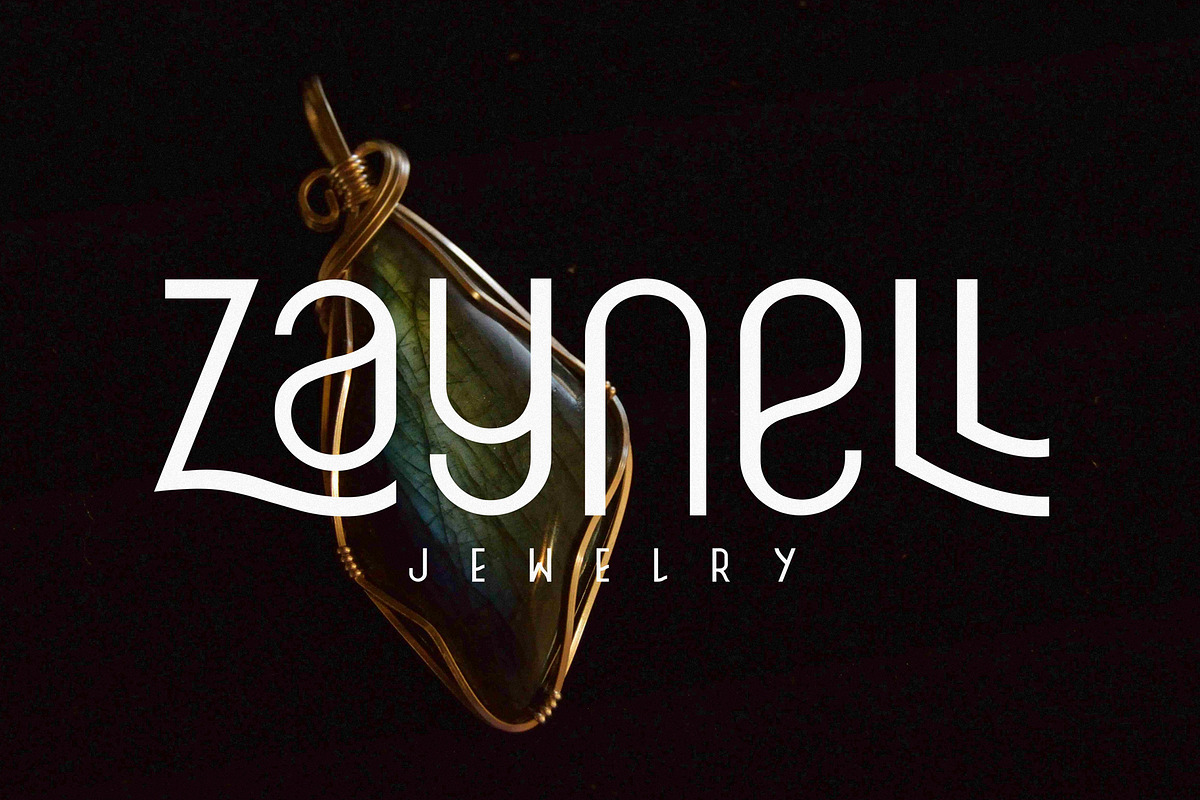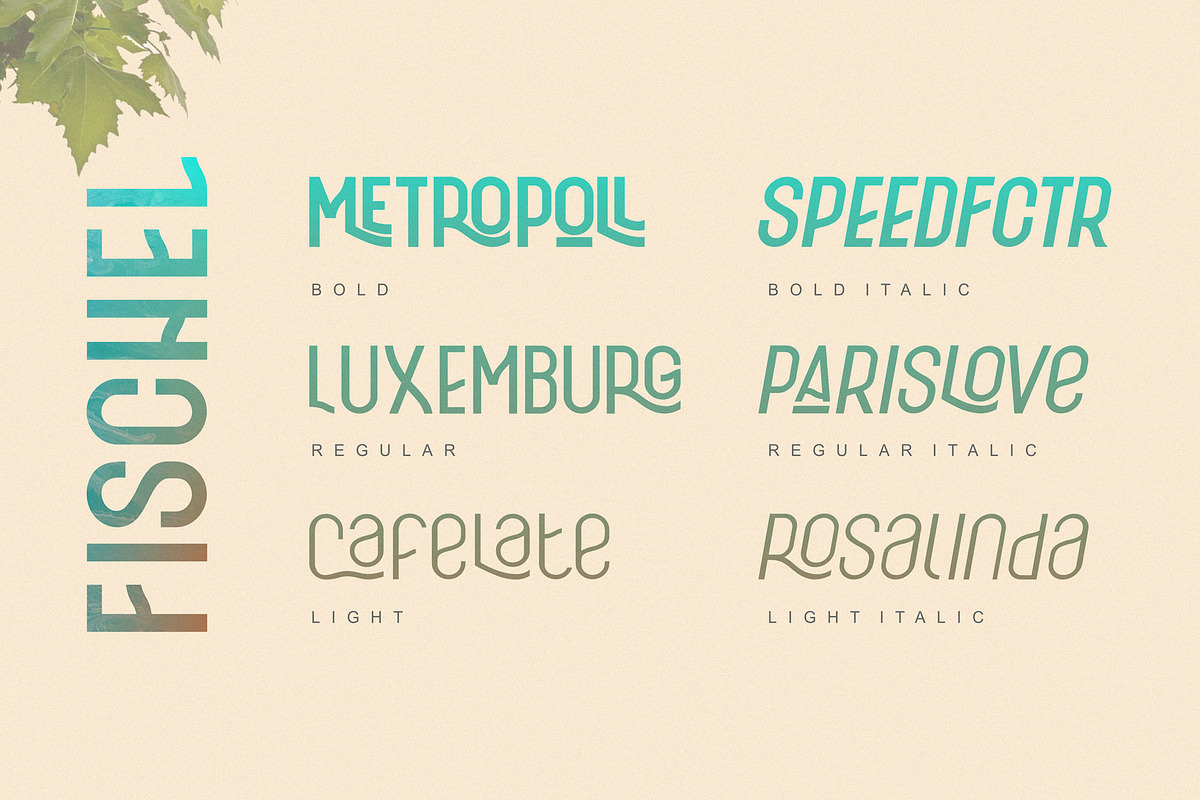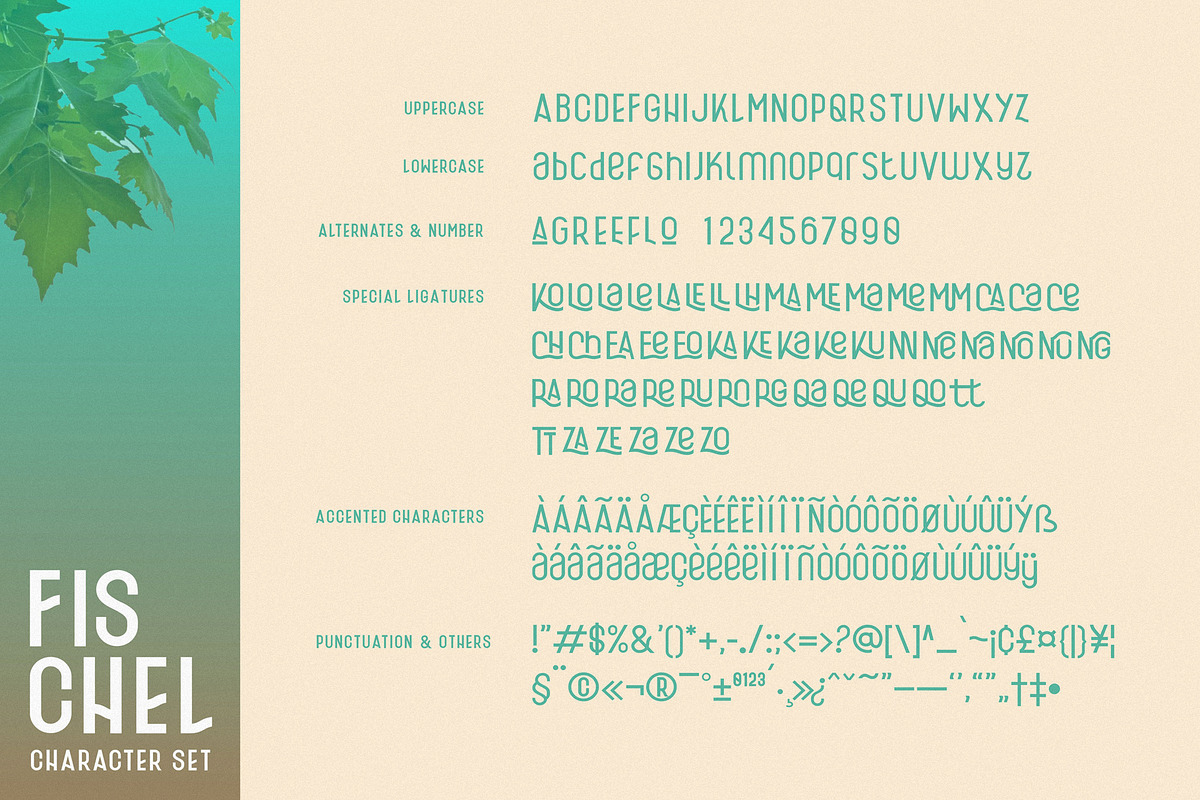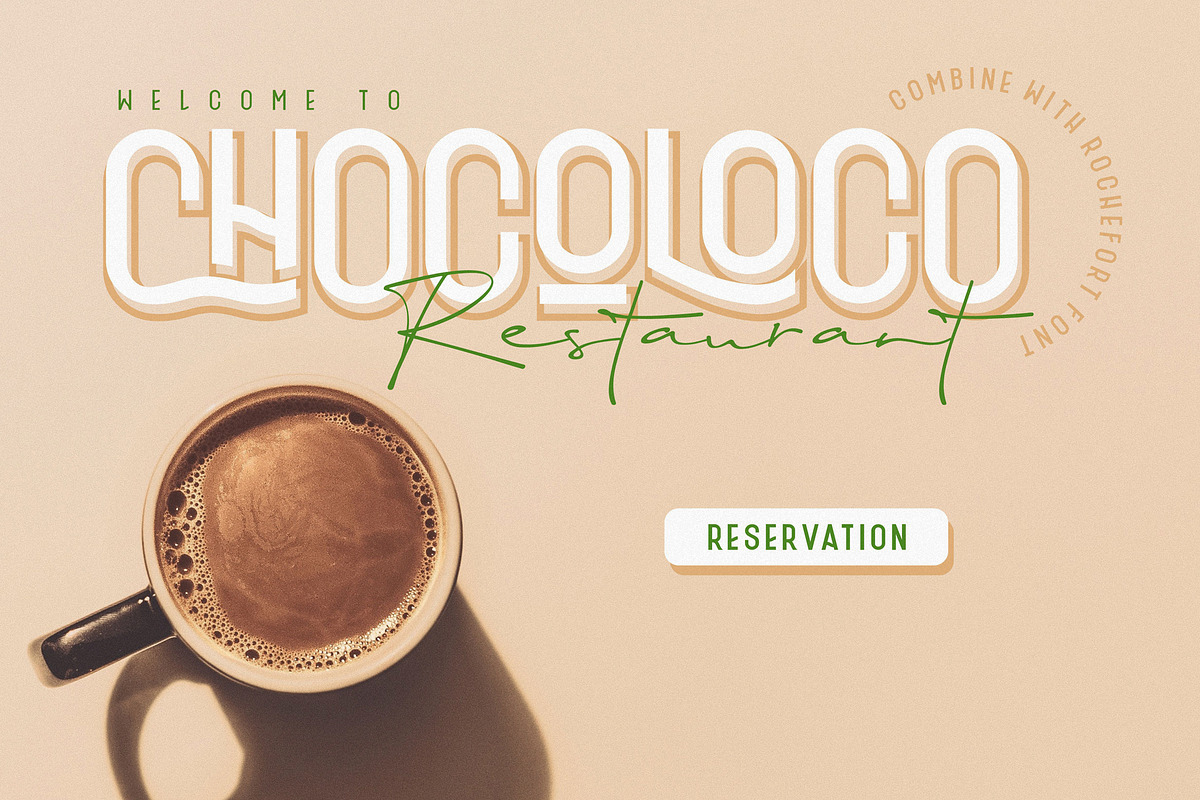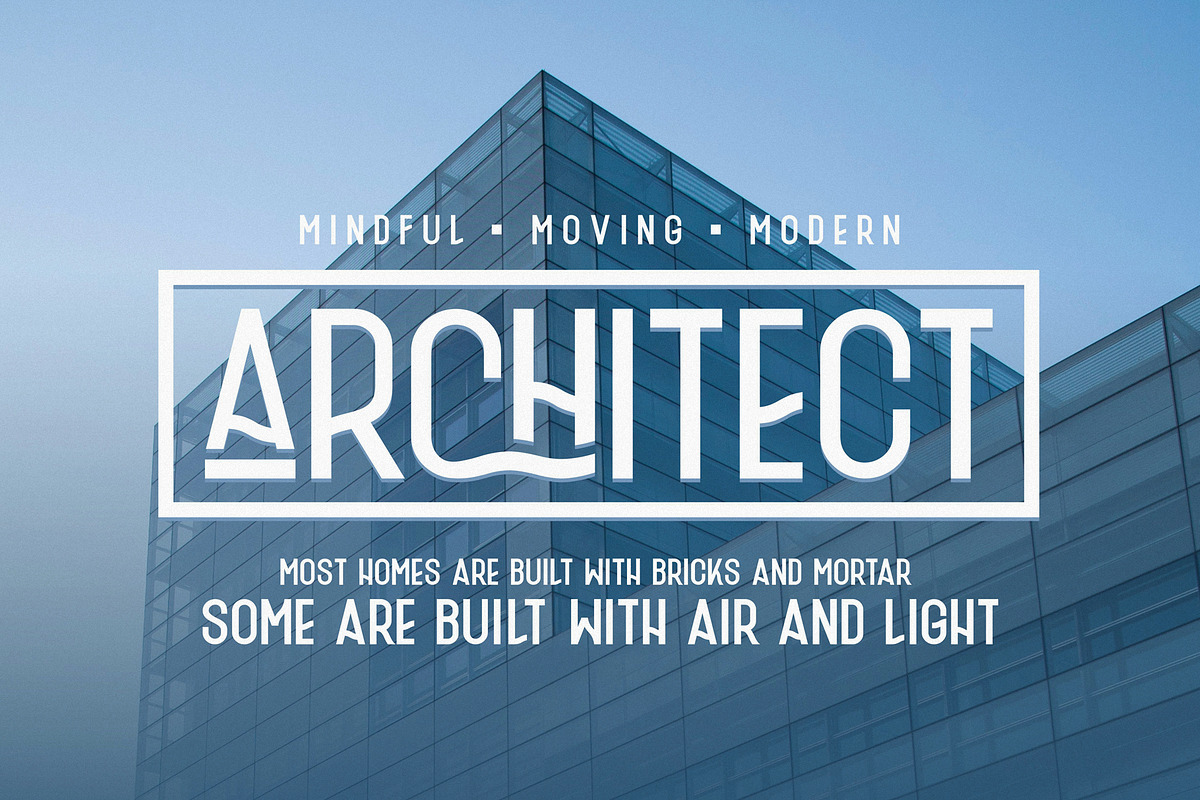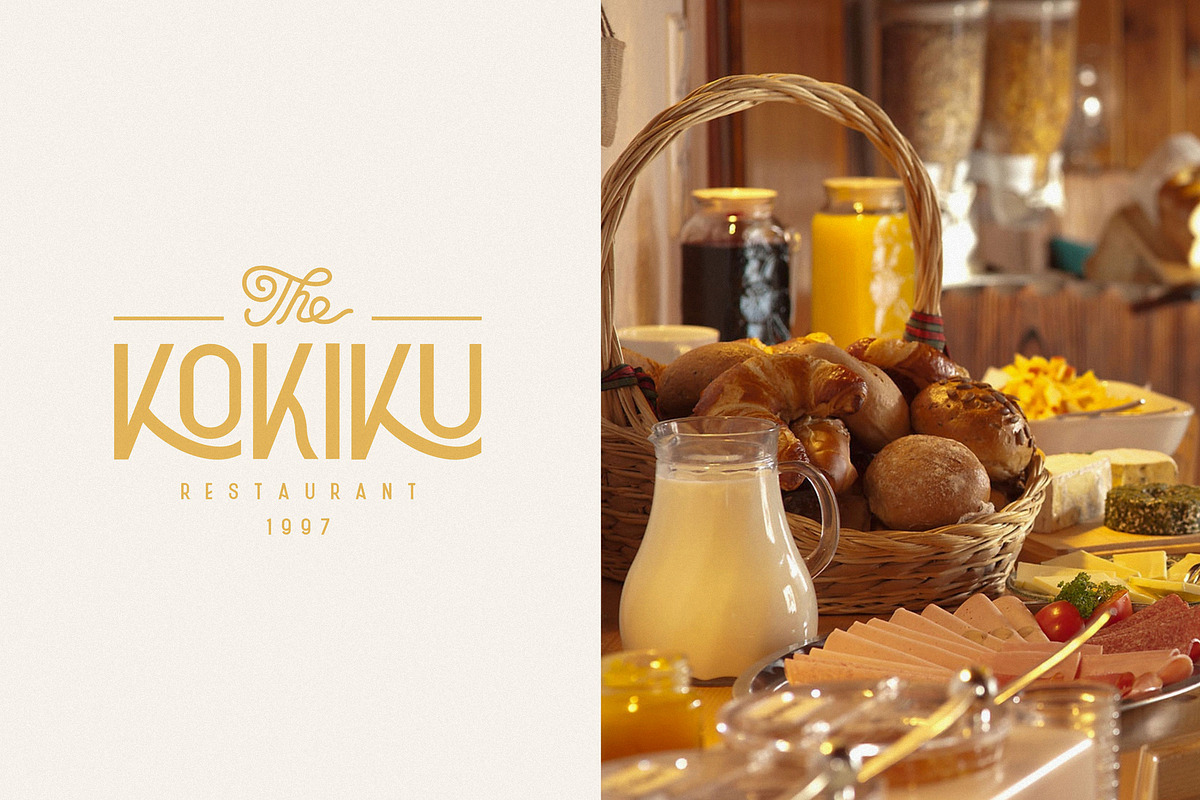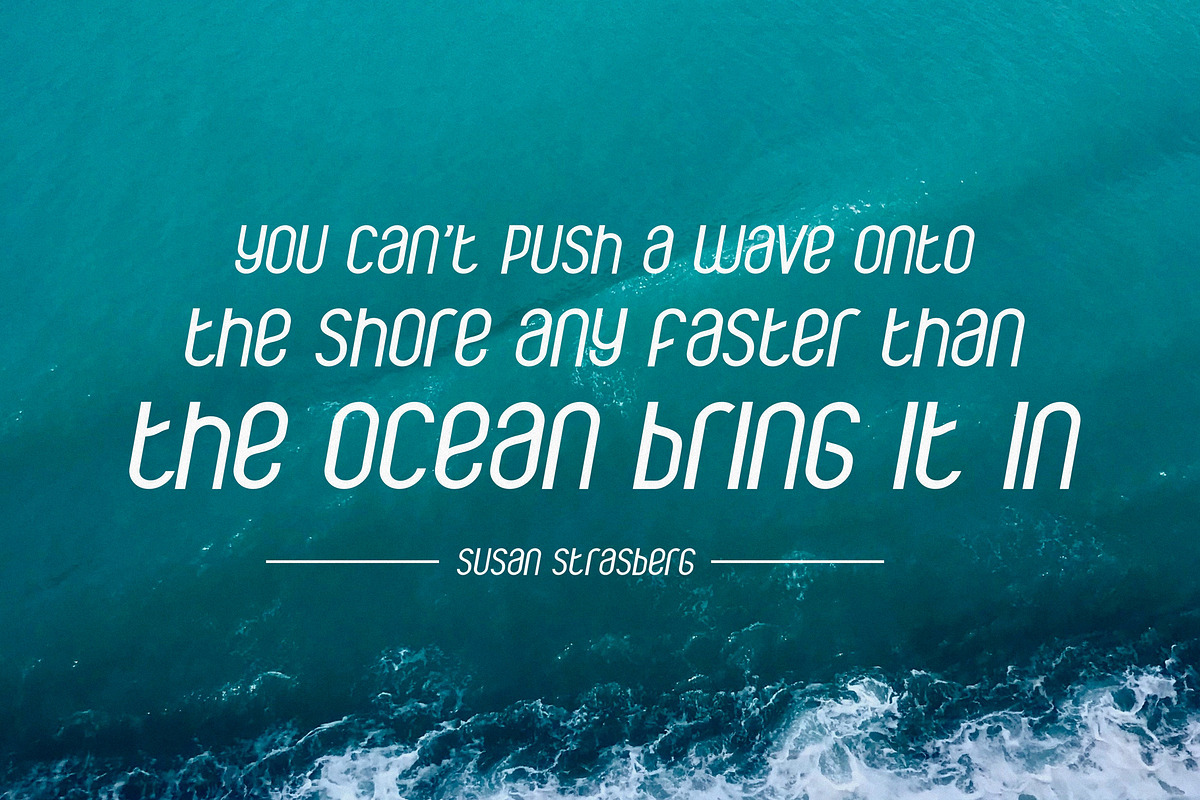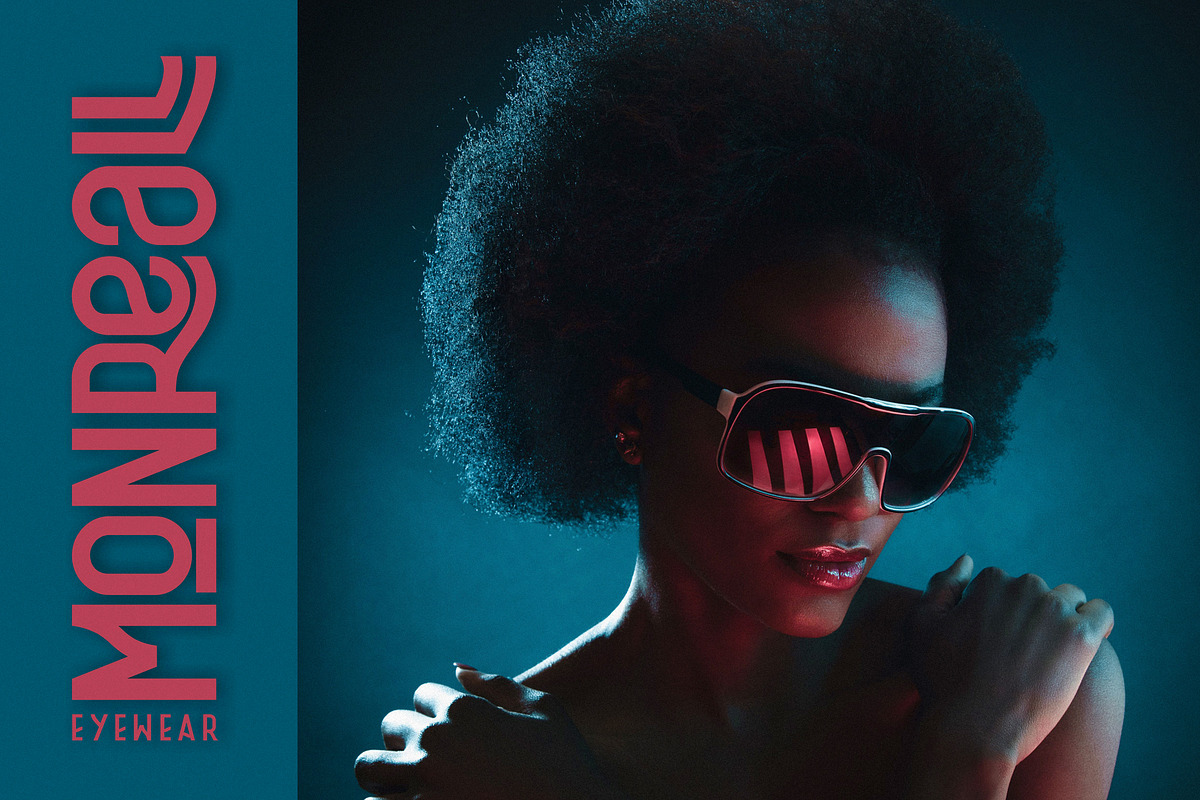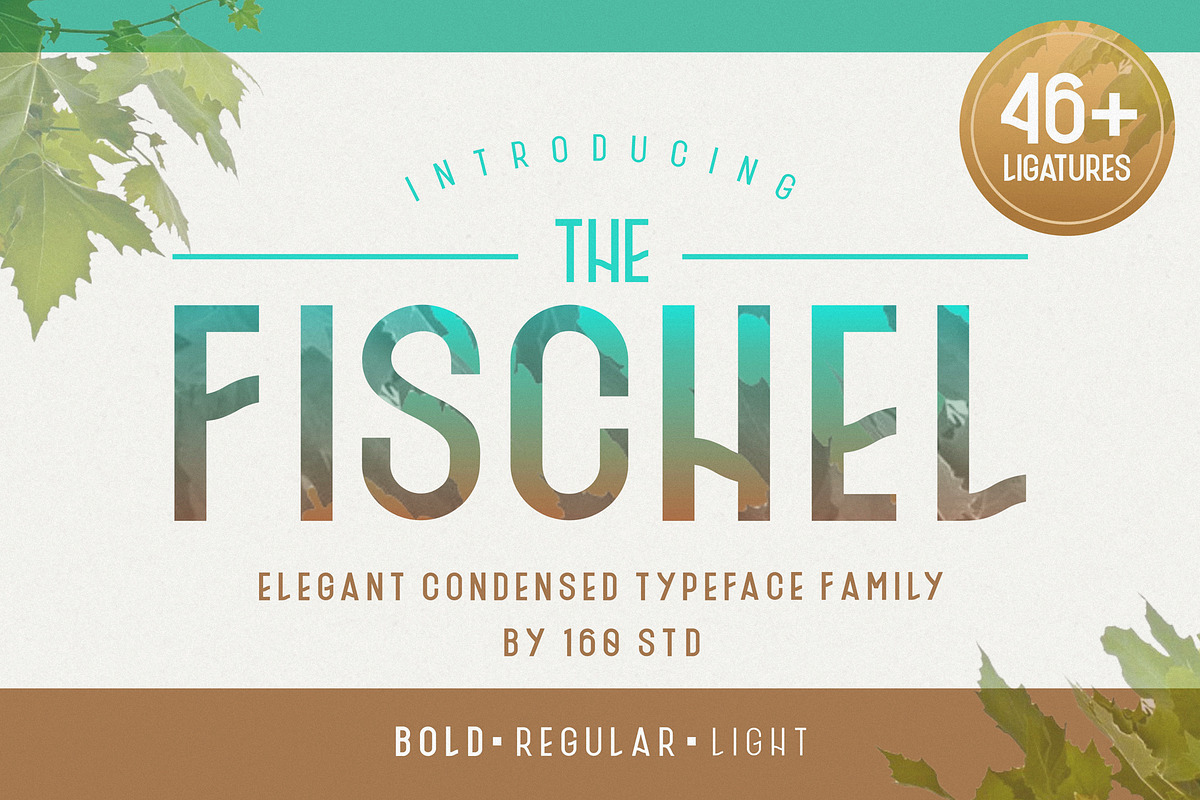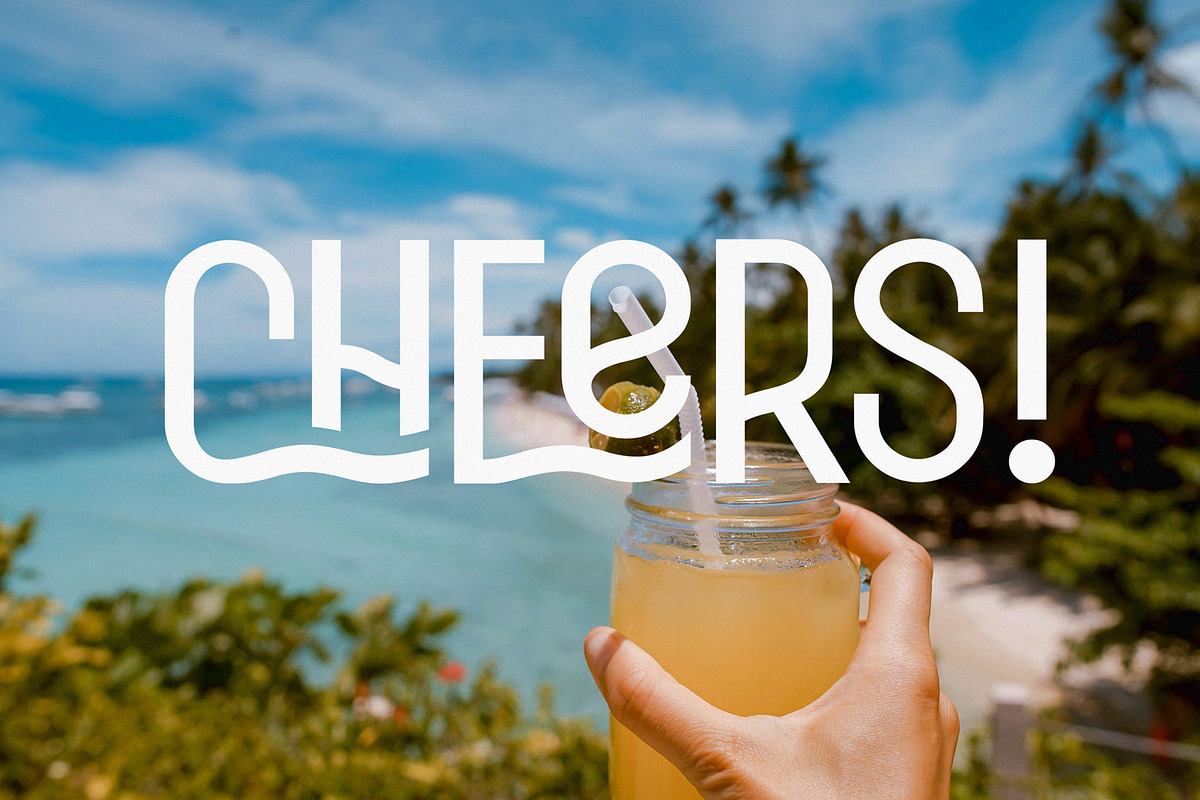
Fischel Elegant Condensed Family
FISCHEL condensed sans serif font coming in 6 styles. Strong letters with ton of ligatures and style to choose to make unique only for you! This fonts is perfect for Logo, headlines, quotes, Web, magazine covers, editorial design, print posters, signage, window shop design, etc.
FEATURES -6 Styles/weight -Numerals & Punctuations -Ton of Beautiful Ligatures & Alternates -OTF, TTF, WEB -Multilanguage support